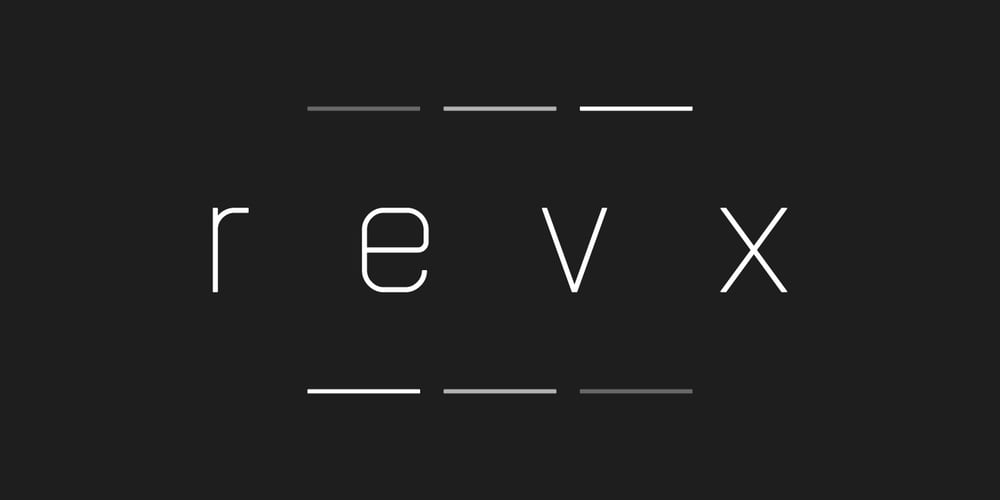
Revx Font Family was designed by Abhishek Junghare and published by OneSevenPointFive. Revx contains 8 styles and family package options. • Excellent choice for Logo designing, Main body text, Headings, Titles, etc.• Rounded corners for calm yet attractive typeface.